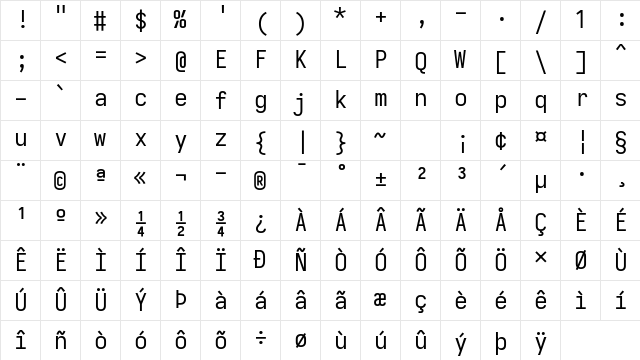
Iosevka Extended Regular
Foundry: Belleve Invis
Designer: Belleve Invis
Design Context for Iosevka Extended
Iosevka Extended is a composed and adaptable typeface that performs quietly and consistently across a wide range of design contexts.